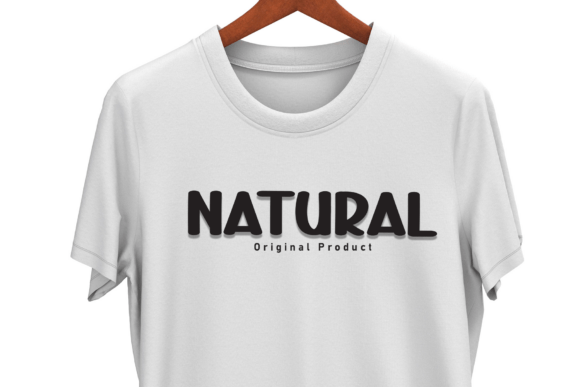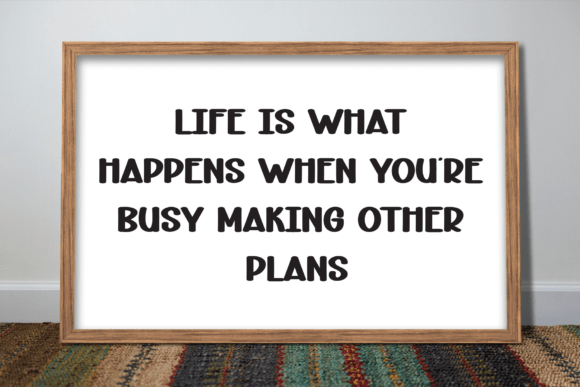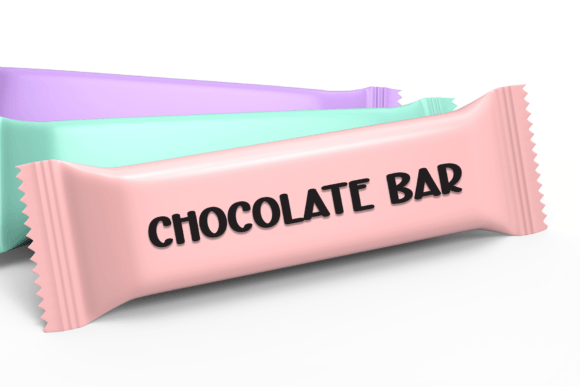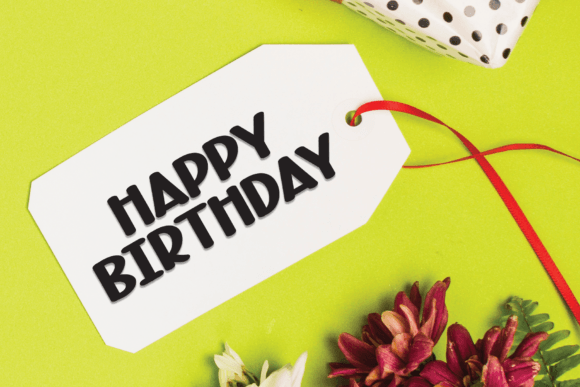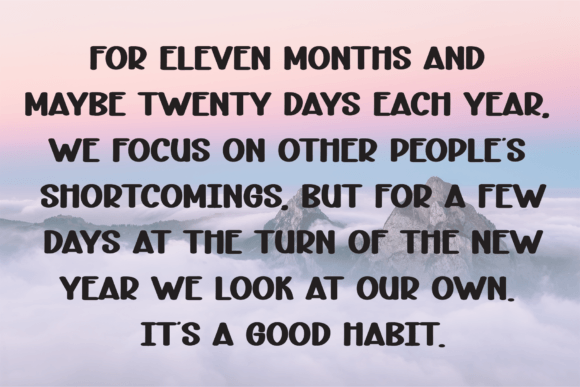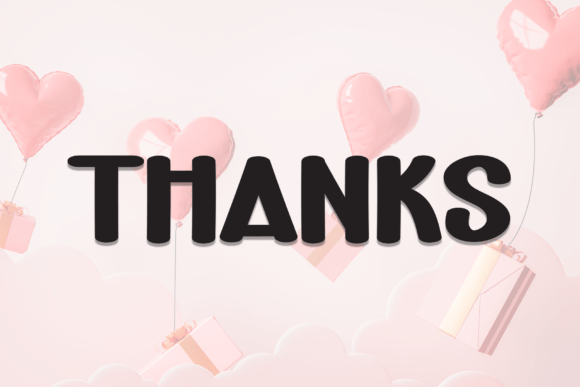
Introduction to Quick Love Font
Have you ever found yourself scribbling down a heartfelt message in a favorite notebook, only to realize that the handwritten script has become the most beautiful part of the note? That’s the magic of the Quick Love Font, a charming blend of whimsy and warmth that captures the essence of handwritten love letters and personal notes.
As designers, we’re always on the lookout for high-quality design resources that can elevate our creative projects and make them truly special. The Quick Love Font is a treasure trove of inspiration, perfect for crafting wedding invitations, personalizing cards, or adding a spirited touch of fun to any design project. With its transparent background and free download option, this font is a valuable addition to any designer’s toolkit.
Key Features of Quick Love Font
- High-quality font design with a transparent background, perfect for creative projects that require a clean and modern look.
- Available in multiple sizes and resolutions, including 300 DPI, ensuring crisp and clear display on any device or medium.
- Unique and playful design elements, making it ideal for creative projects such as logos, branding, and graphics.
- Easy to customize and edit, allowing designers to tailor the font to their specific needs and preferences.
- Quick Love Font is a versatile design resource that can be used for a wide range of applications, from print materials to digital displays.
- Includes a comprehensive character set, supporting multiple languages and ensuring that it can be used in a variety of creative projects.
Honest Review: Quick Love Font
As a designer, I’m always on the lookout for high-quality fonts to add a personal touch to my creative projects. The Quick Love Font is one such font that caught my attention, and I’m excited to share my honest review with you.
- ✨ Beautiful, modern design that’s perfect for creating a romantic atmosphere.
- ✨ High-quality font with a transparent background, making it easy to use in any design project.
- ⚠️ Limited character set, which might be a concern for designers who need a font with a wide range of characters.
- ⚠️ Not ideal for use in small text sizes, as the font might become difficult to read.
Overall, I think the Quick Love Font is a great addition to any designer’s toolkit. While it has its limitations, the font’s beautiful design and high quality make it a valuable resource for any creative project. If you’re looking for a romantic font to add a touch of love to your design, the Quick Love Font is definitely worth checking out.
Tips for Getting the Most Out of Quick Love Font
The Quick Love Font is perfect for creating invitations, social media graphics, and other design elements. It’s also great for adding a personal touch to your blog or website.
The Quick Love Font has a high resolution of 300 DPI, making it suitable for use in a variety of design applications, including print and digital media. The font’s high quality ensures that it will display clearly and consistently, even at larger sizes.